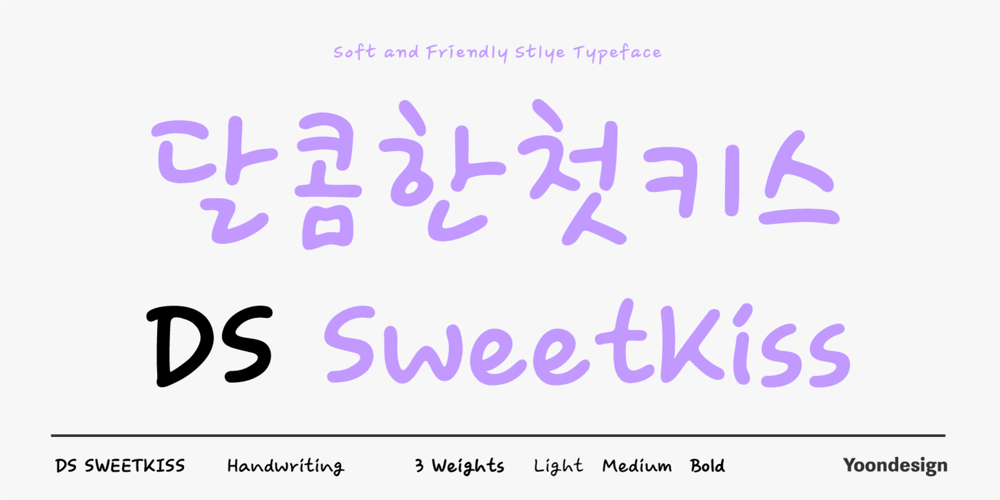
DS SweetKiss Font Family was designed by Yoon Design Team and published by Yoon Design. DS SweetKiss contains 1 styles and family package options. DS SweetKiss Family is a cool handwritten script with a warm and friendly voice. We tried to give a feeling of the first love in your mind when you are typing your text with this font. This font family has 3 styles and will come as a helping muse to any designer working with wedding invitations, announcements, gift and delicatessen packaging, or magazine layouts.